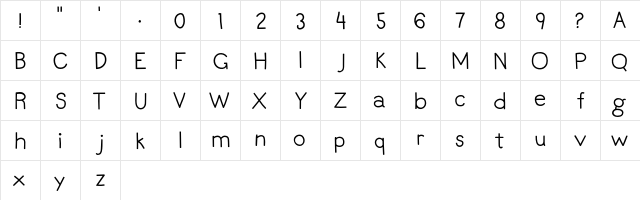
Write Sans Lite Regular Font Preview
Write Sans Lite Regular
Write Sans Lite Regular Font Details
| Foundry | Alphabetype |
| Designer | Janina Aritao / Alphabetype |
Design Context for Write Sans Lite Typeface
Write Sans Lite is a composed and adaptable typeface that performs quietly and consistently across a wide range of design contexts.